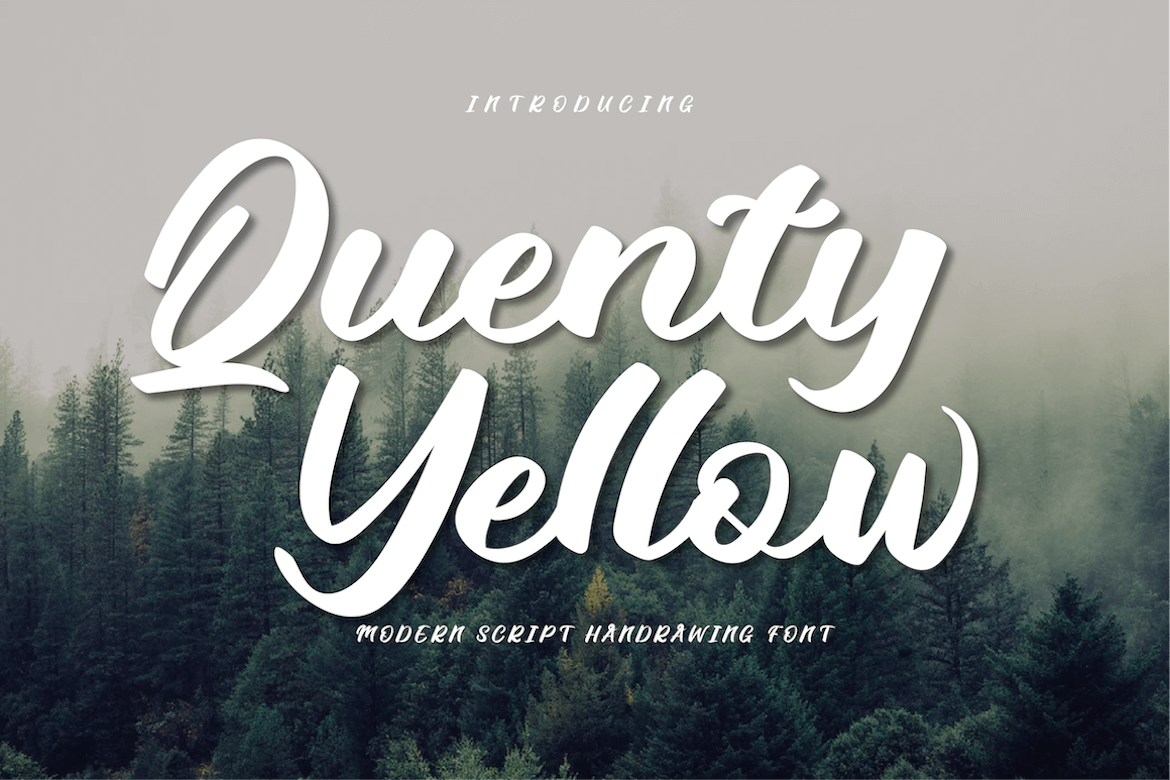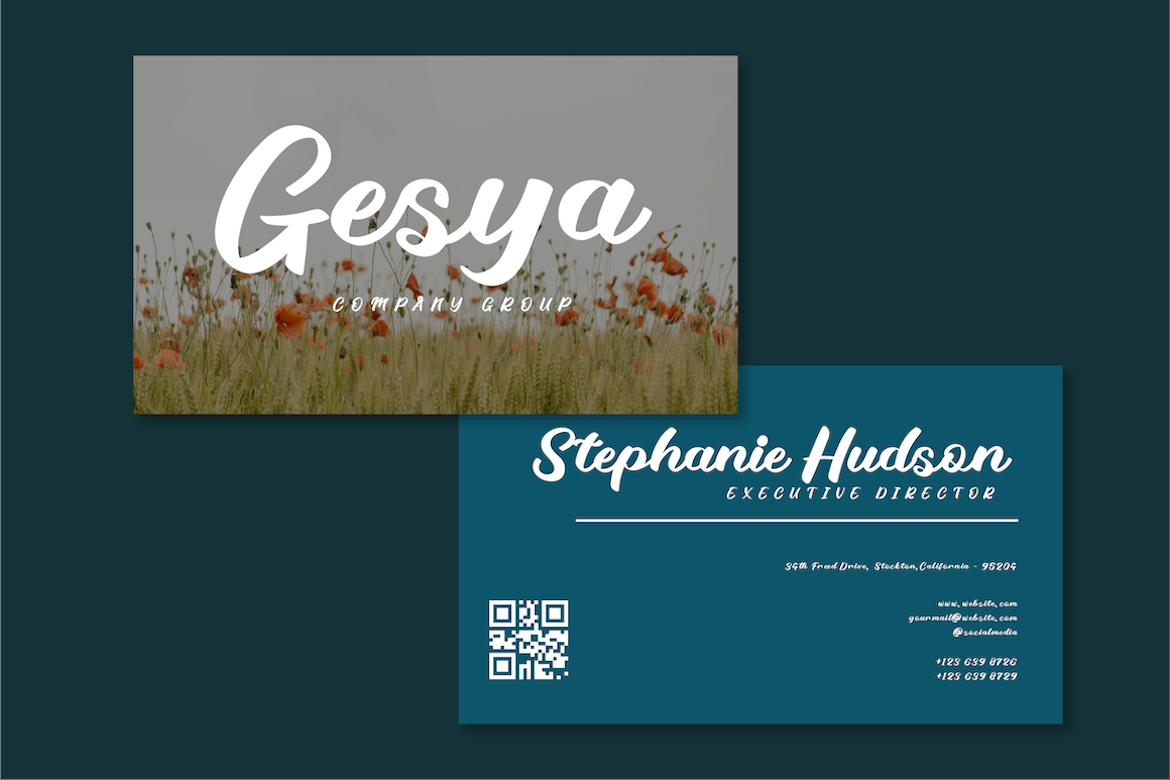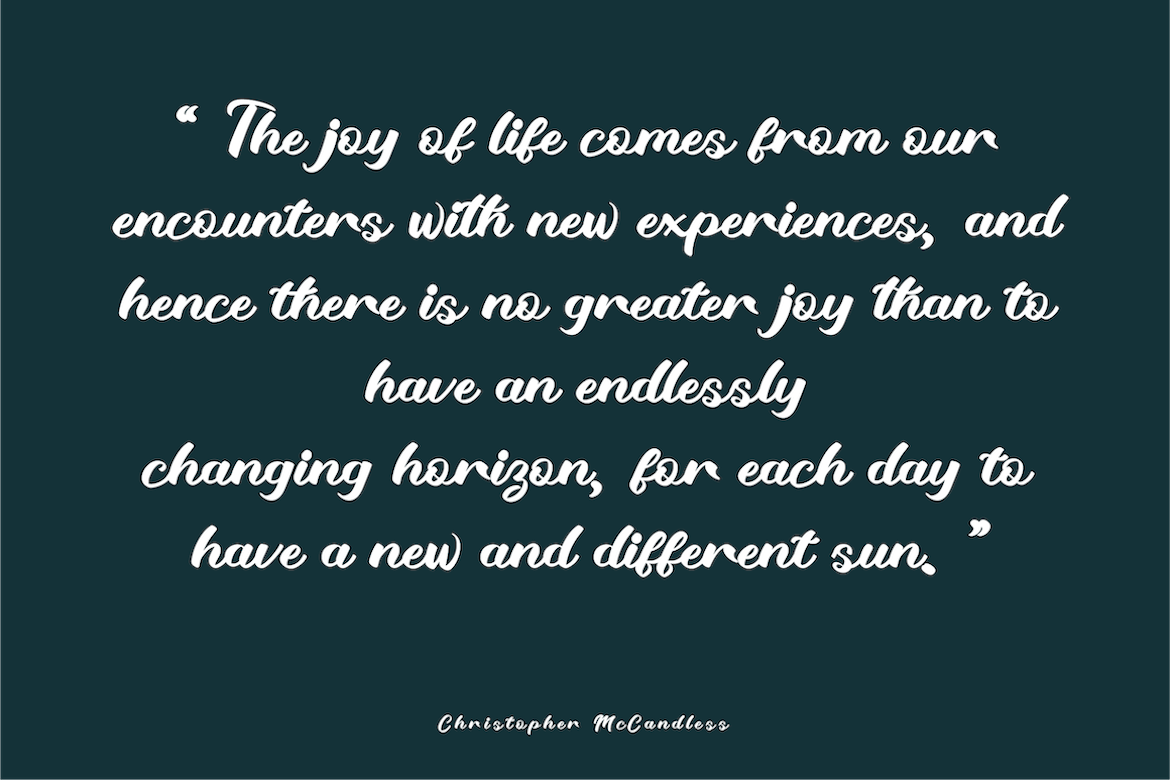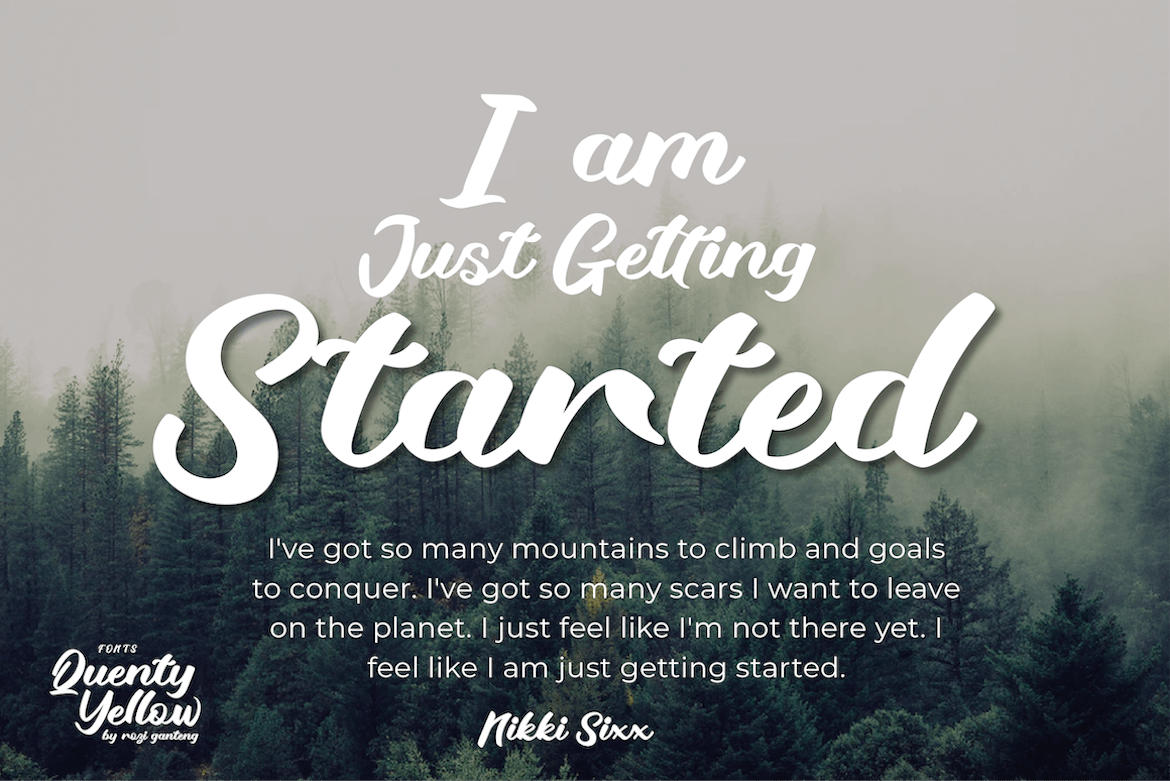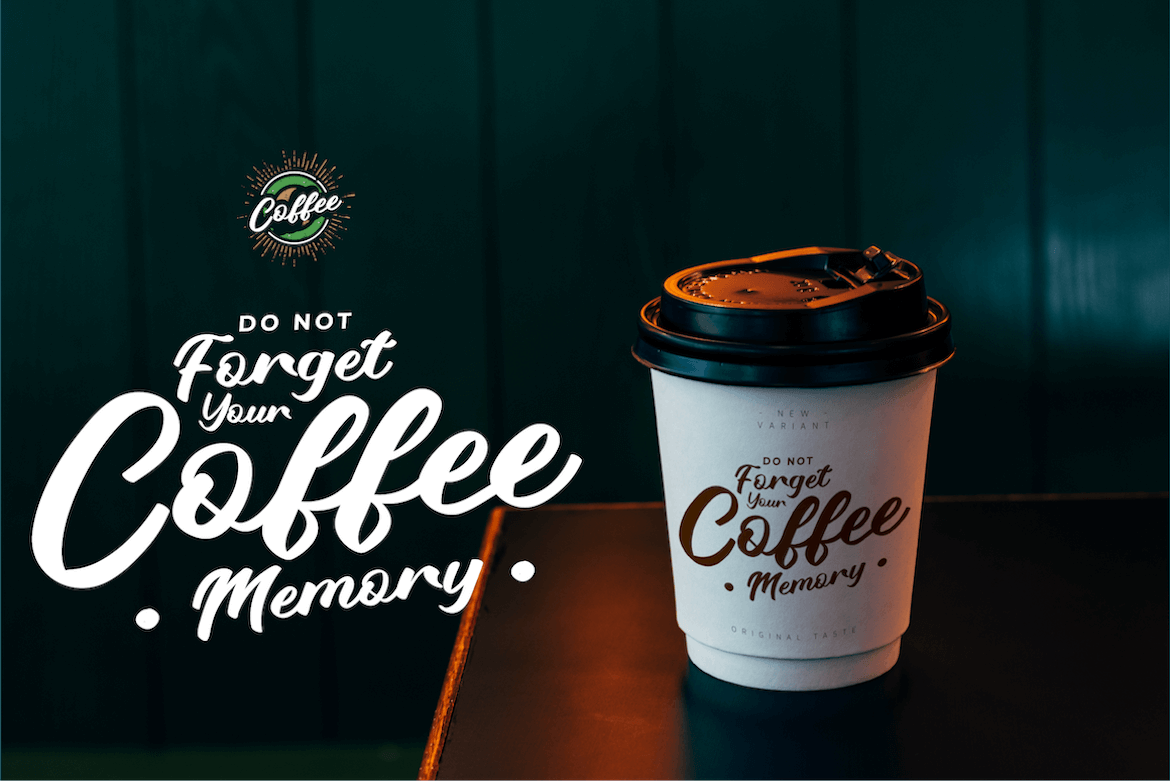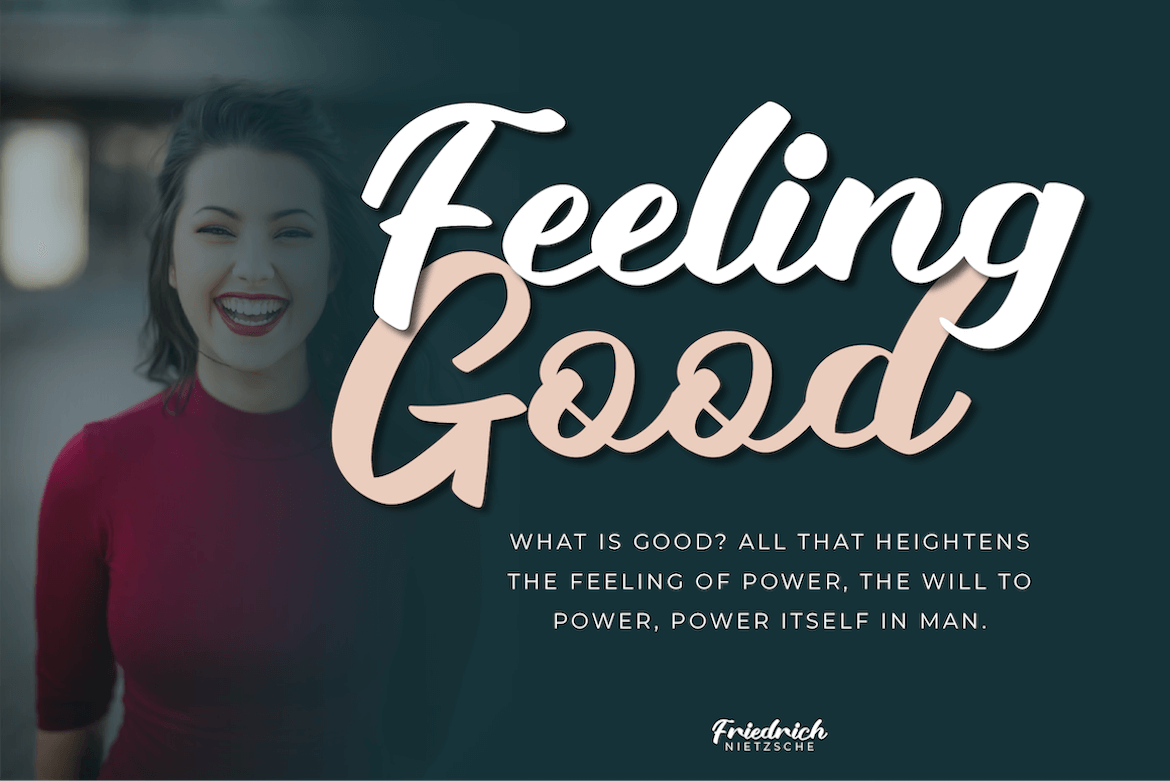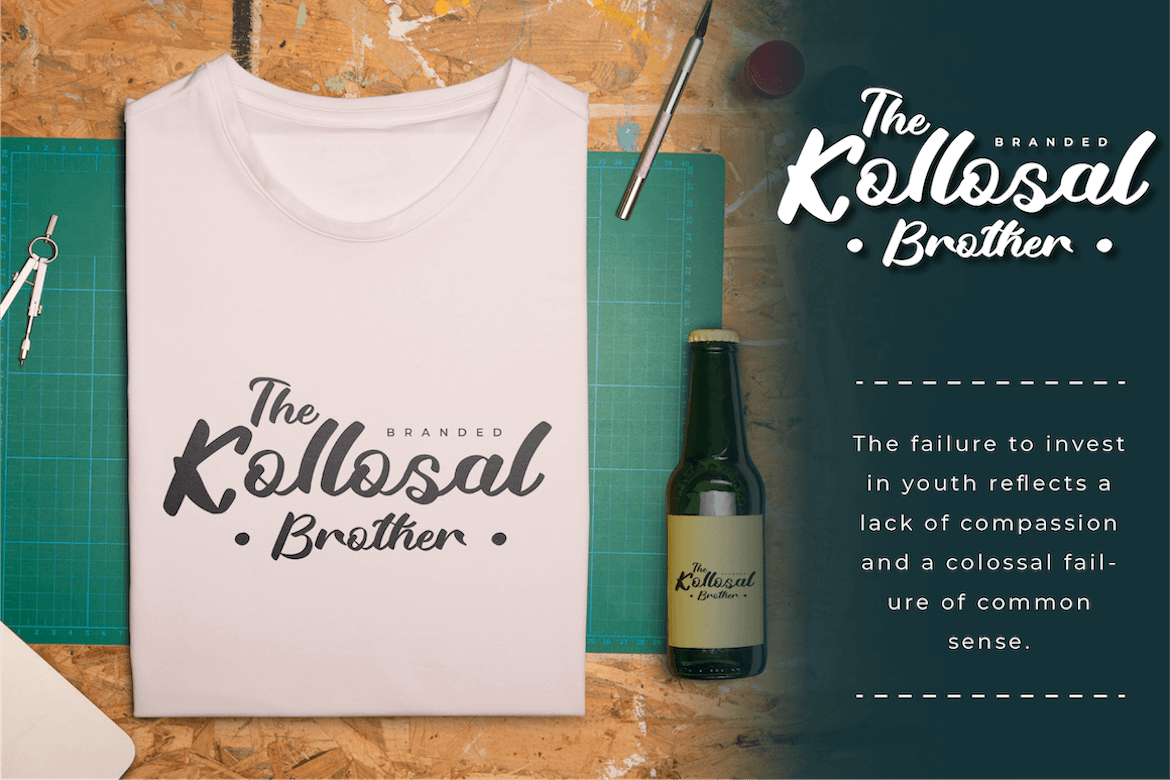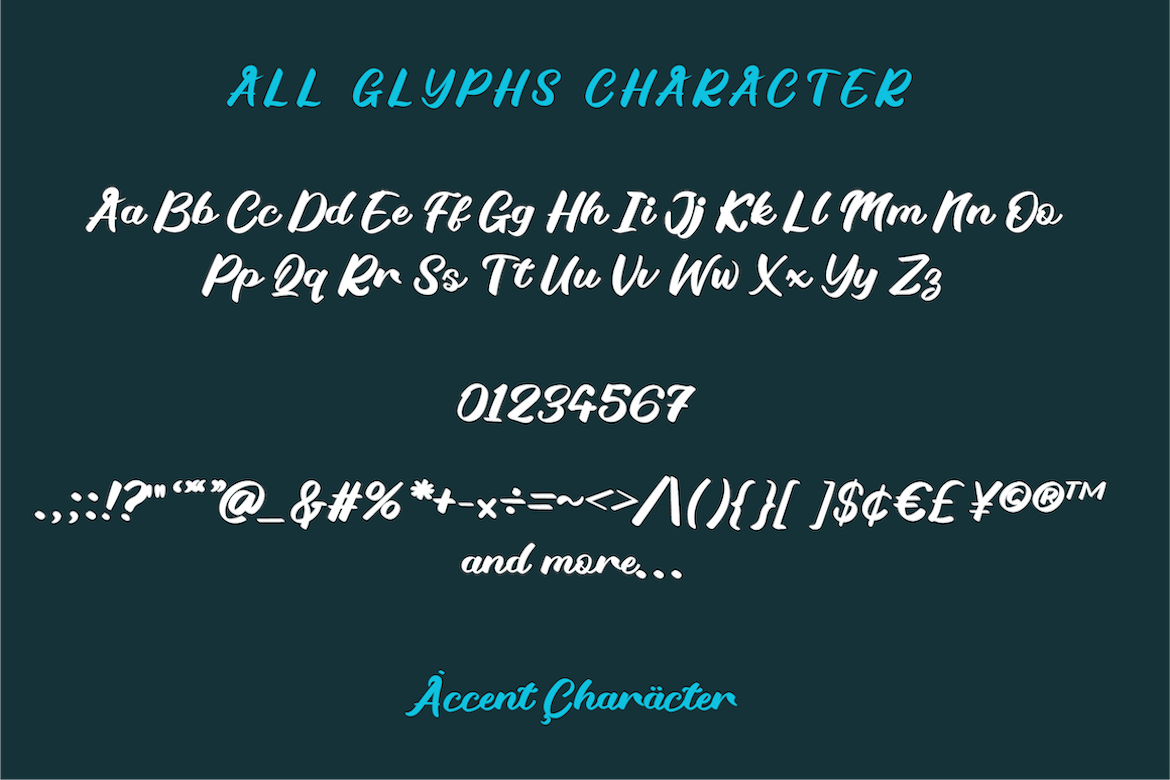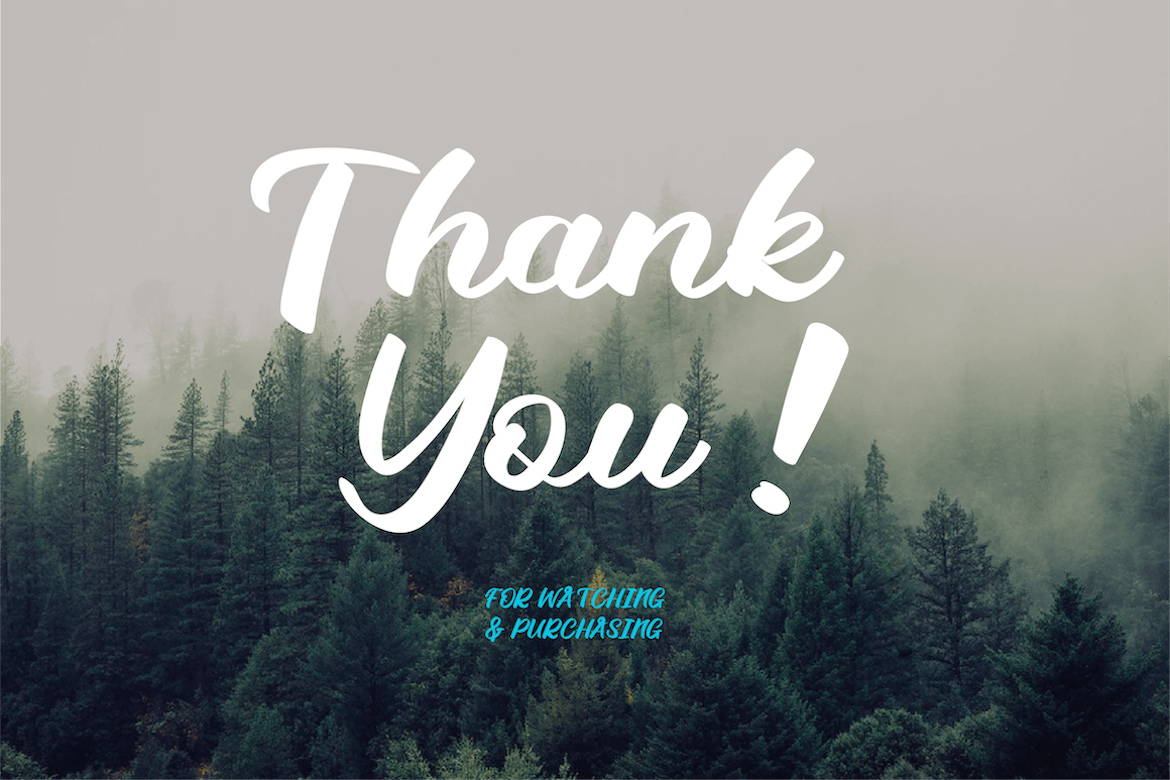
Quenty Yellow
Quenty Yellow is a stylish and incredibly elegant script font. It looks stunning on wedding invitations, thank you cards, quotes, greeting cards, logos, business cards, and every other design which needs a handwritten touch.
Not only that, but this font has a genuine handwritten feel to it, which has been developed to create a portion and composition that matches your demands. As a result, this typeface is appropriate for craft projects, children’s writing, adventure posters, food banner titles, wedding invitations, product packaging logos, quotations, social networking page covers, furniture banners, headlines, book covers, and much more.